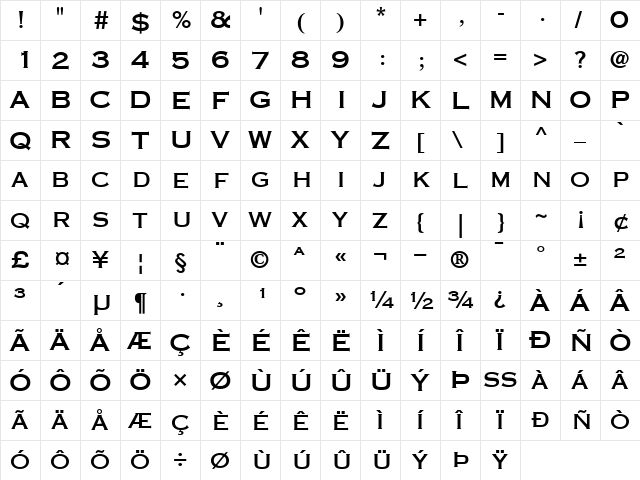
CopperplateGothicThirty-OneAB Roman Font Preview
CopperplateGothicThirty-OneAB Roman
CopperplateGothicThirty-OneAB Roman Font Details
Design Context for CopperplateGothicThirty-OneAB Typeface
CopperplateGothicThirty-OneAB has the quiet confidence of well-executed sans-serif typography: versatile, unobtrusive, and dependable at any size.
Font Pairing: Works well alongside a characterful serif or display font that can carry the expressive load while CopperplateGothicThirty-OneAB handles the functional copy.
Pro Tip: Pair CopperplateGothicThirty-OneAB with a display or serif font for headlines — its neutral character makes it an excellent supporting player in complex typographic systems.